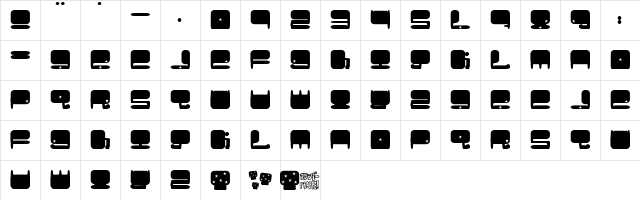
Plumbum Regular
Design Context for Plumbum Typeface
Plumbum is a composed and adaptable typeface that performs quietly and consistently across a wide range of design contexts.